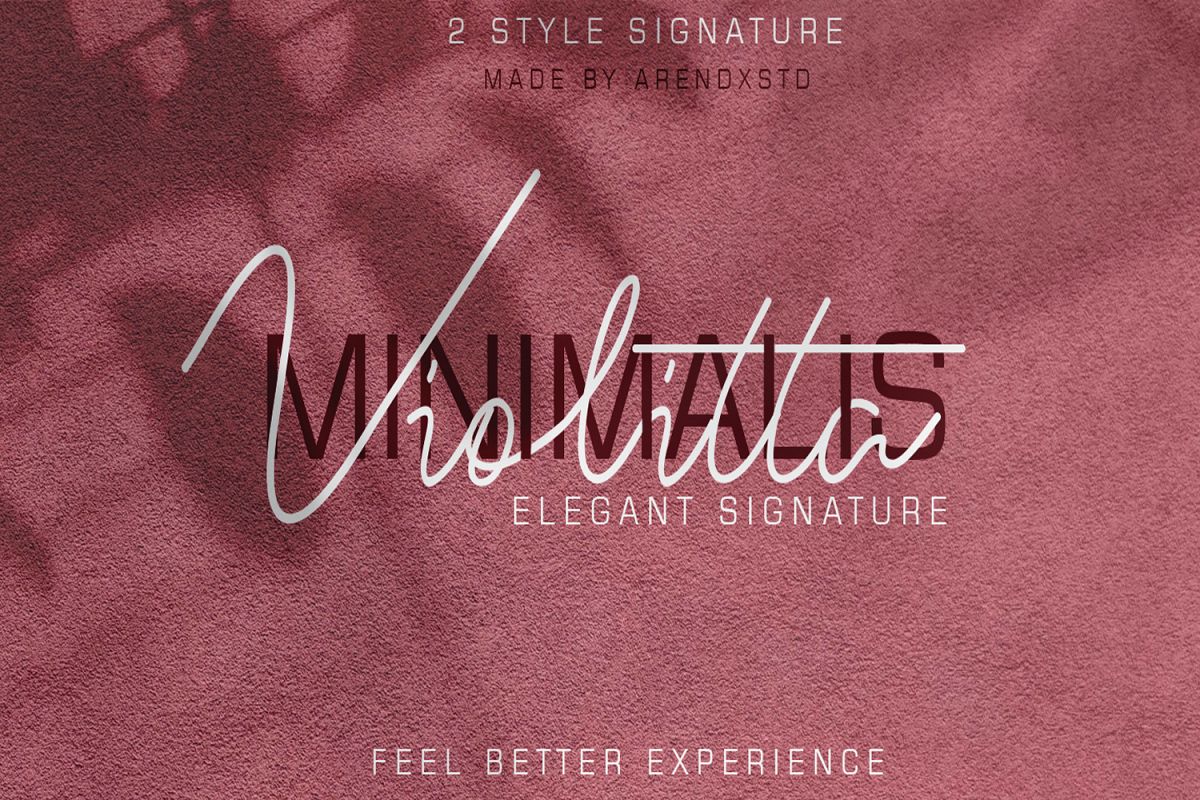
Violitta Signature typeface
Violitta
Violitta Minimalis
Violitta is an elegant minimalist signature handwritten font package with a personal charm. With a style that I feel is the first time being blended with a different brush so it has a natural hand.Violitta Regular contains upper and lower case letters, numbers and various complete signs.Violitta Minimalis includes alternative characters, with capital letters and small that is completely new.